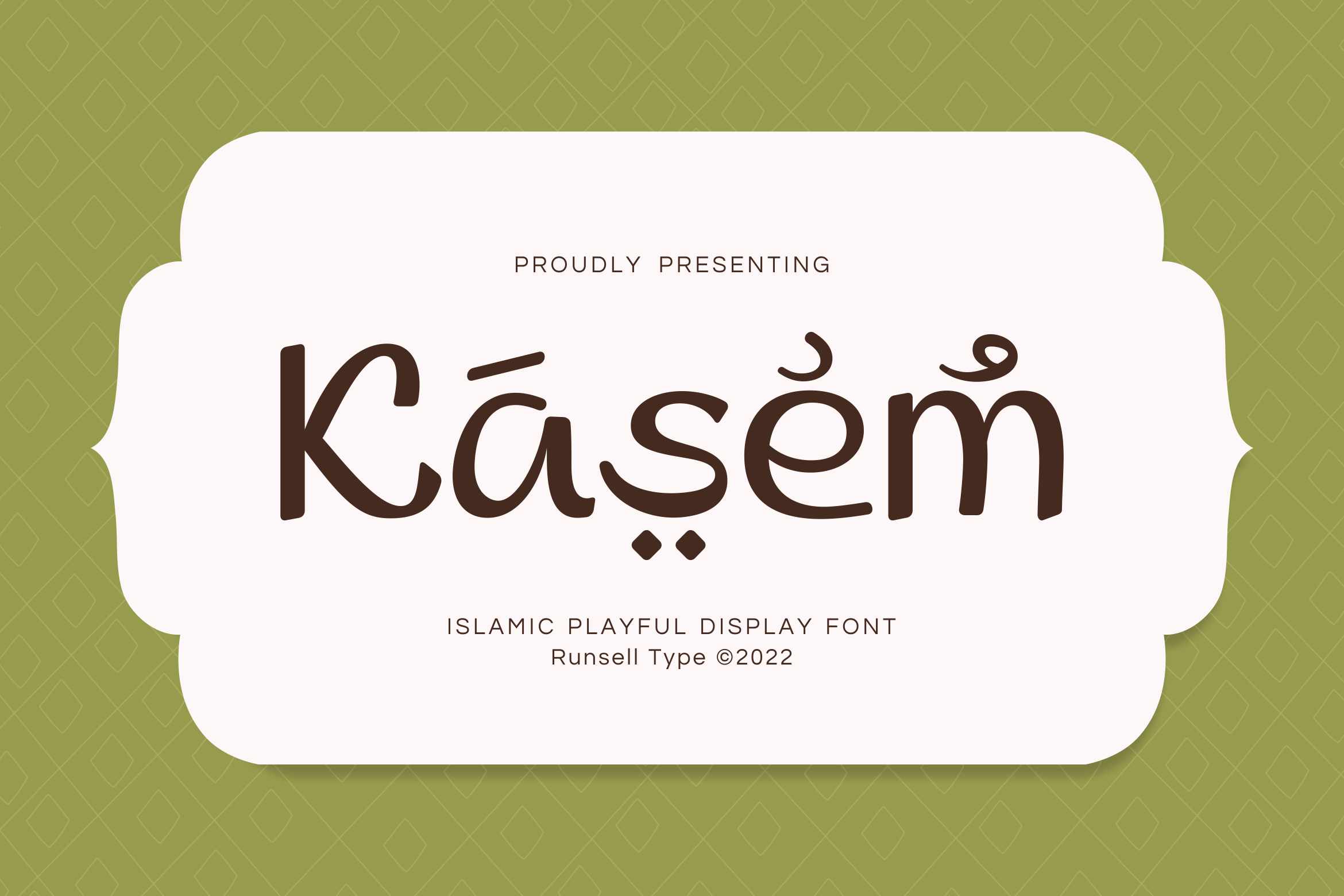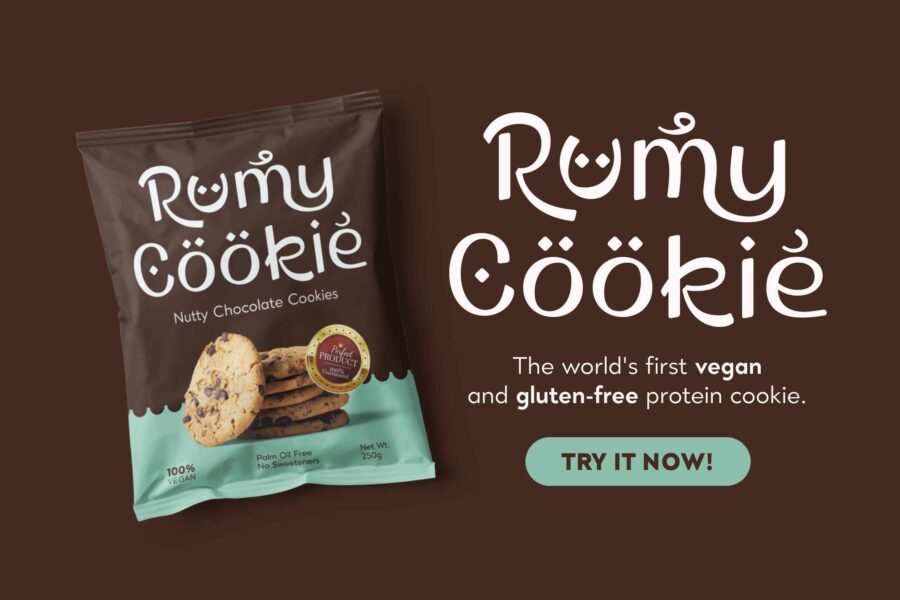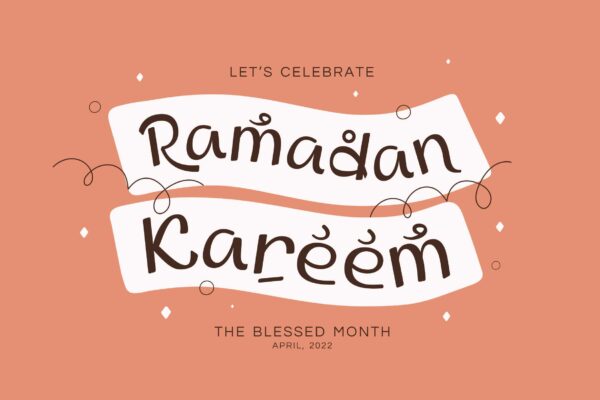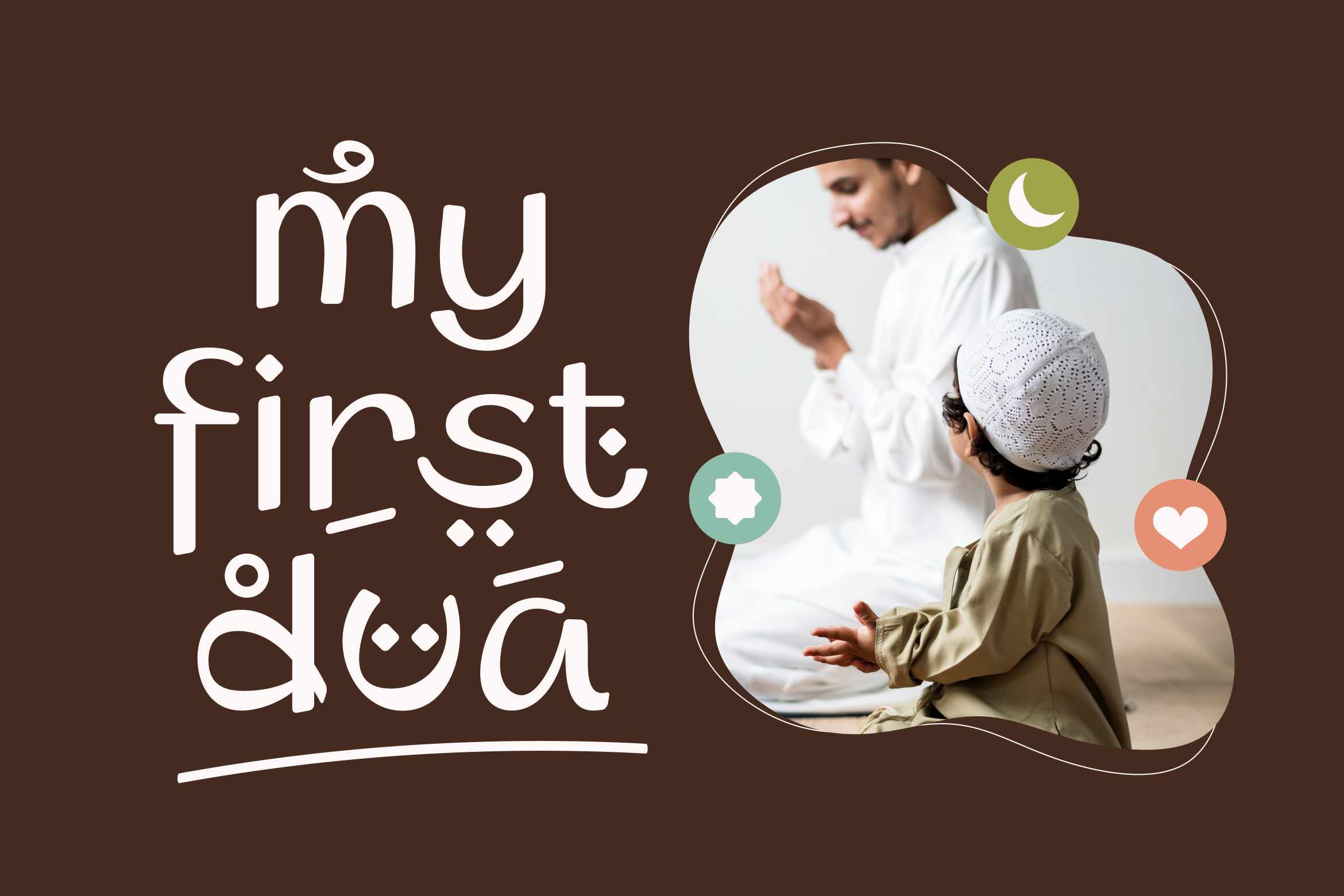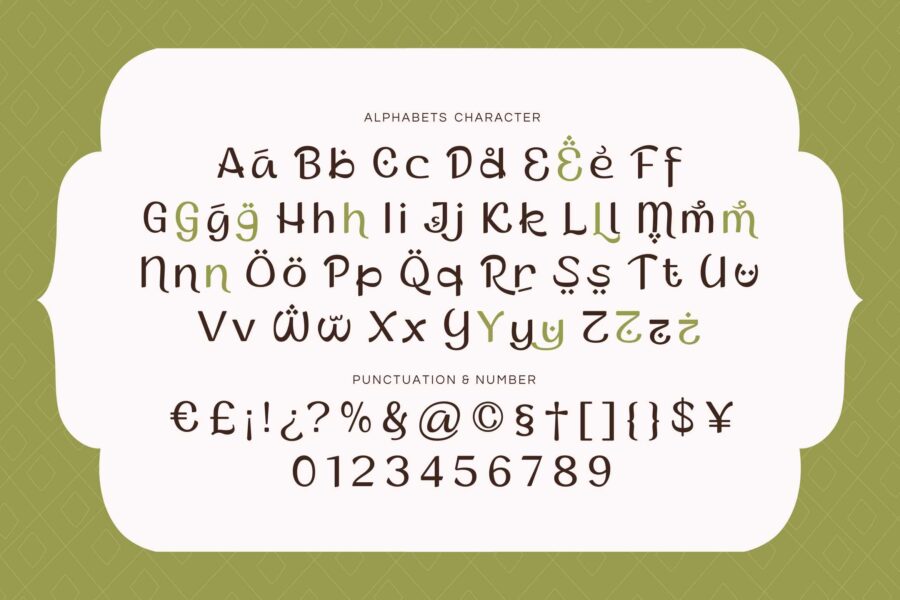
Kasem is a delightful and whimsical display font that draws inspiration from Islamic cultural aesthetics while embracing a cheerful and contemporary look. Its soft, rounded letterforms are infused with ornamental diacritics, making it ideal for kid-friendly branding, educational products, or Ramadan-themed packaging. The font combines playful charm with subtle elegance, suitable for projects that require both personality and cultural warmth.
This typeface supports multilingual characters and features unique alternate glyphs, including creative smiley and swirl accents that make it highly customizable. Kasem works especially well for food labels, children’s books, festive greeting cards, and Islamic educational materials, providing a fresh take on Arabic-inspired Latin typography.